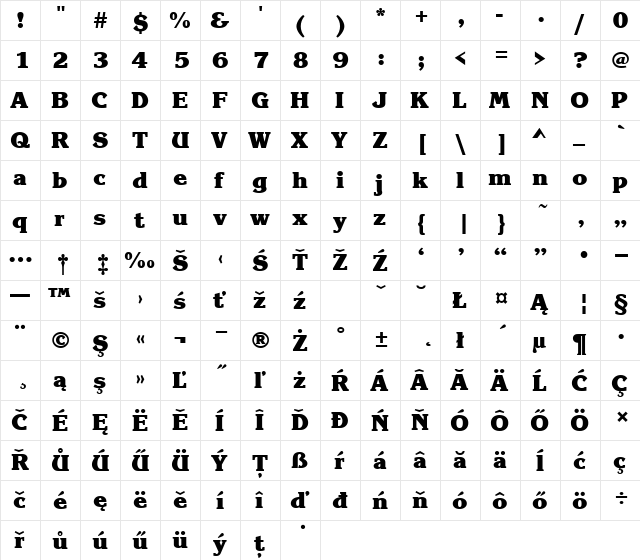
KorinItcTEEHea Regular
Design Context for KorinItcTEEHea Typeface
KorinItcTEEHea is a composed and adaptable typeface that performs quietly and consistently across a wide range of design contexts.